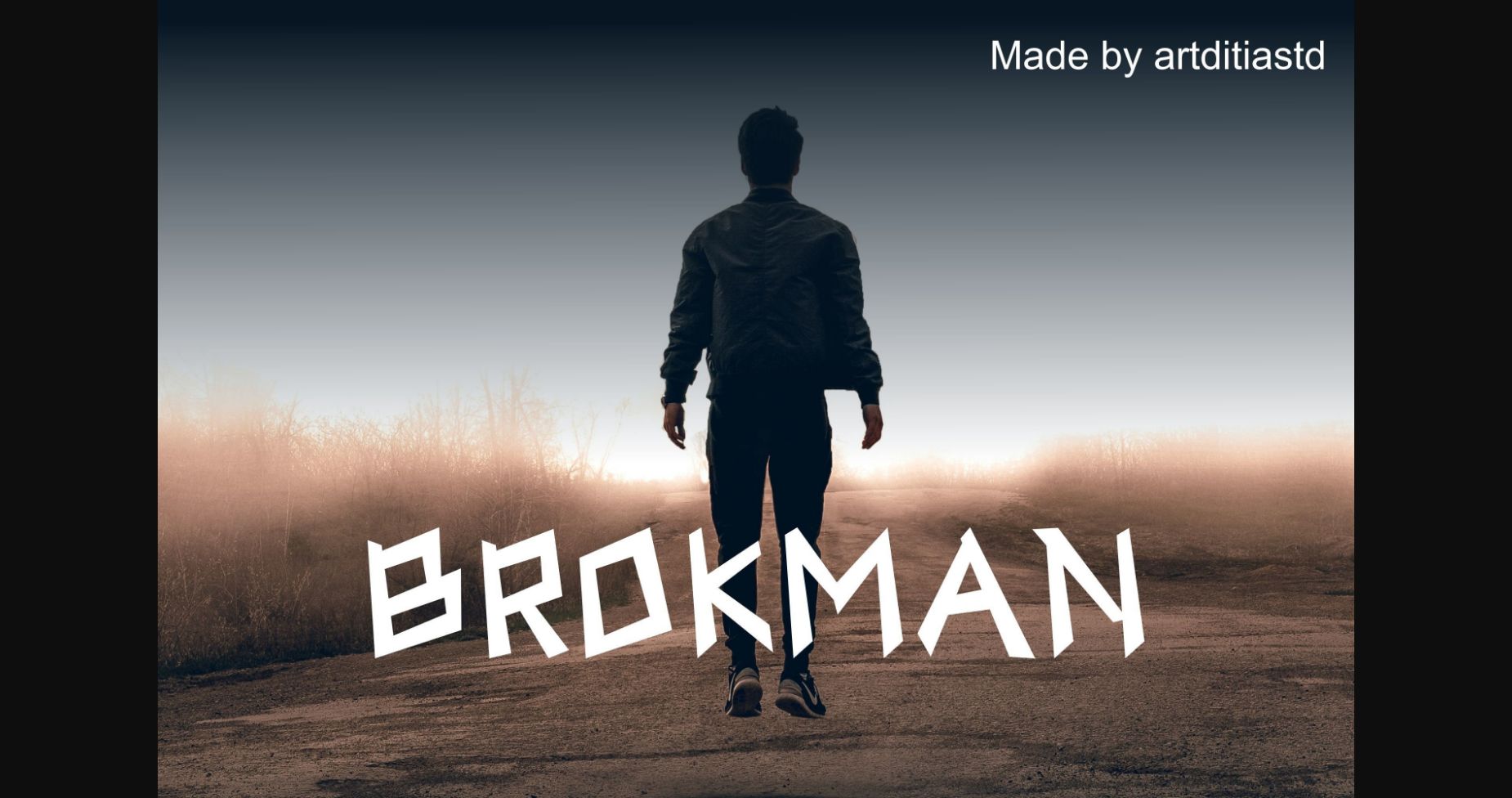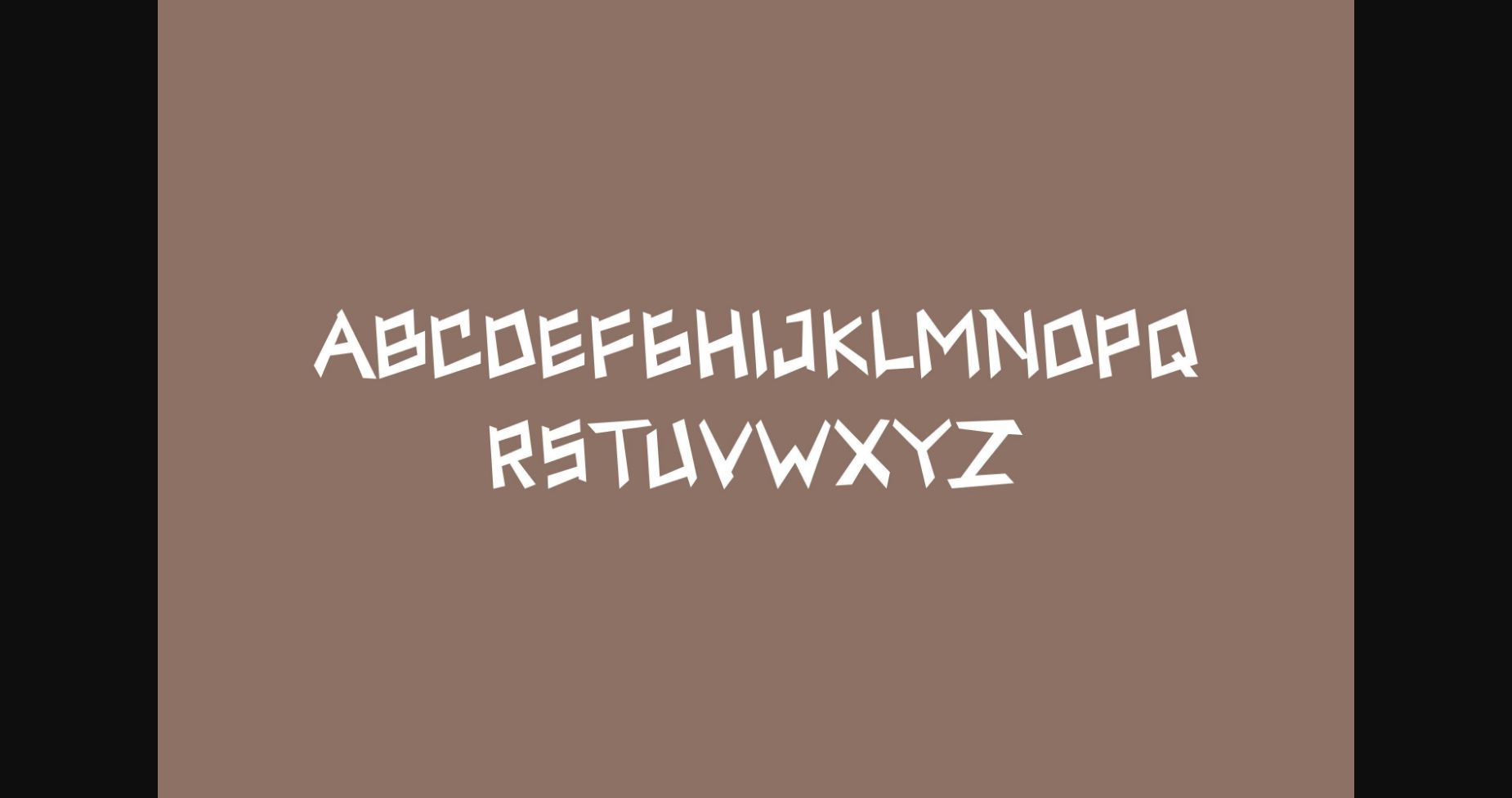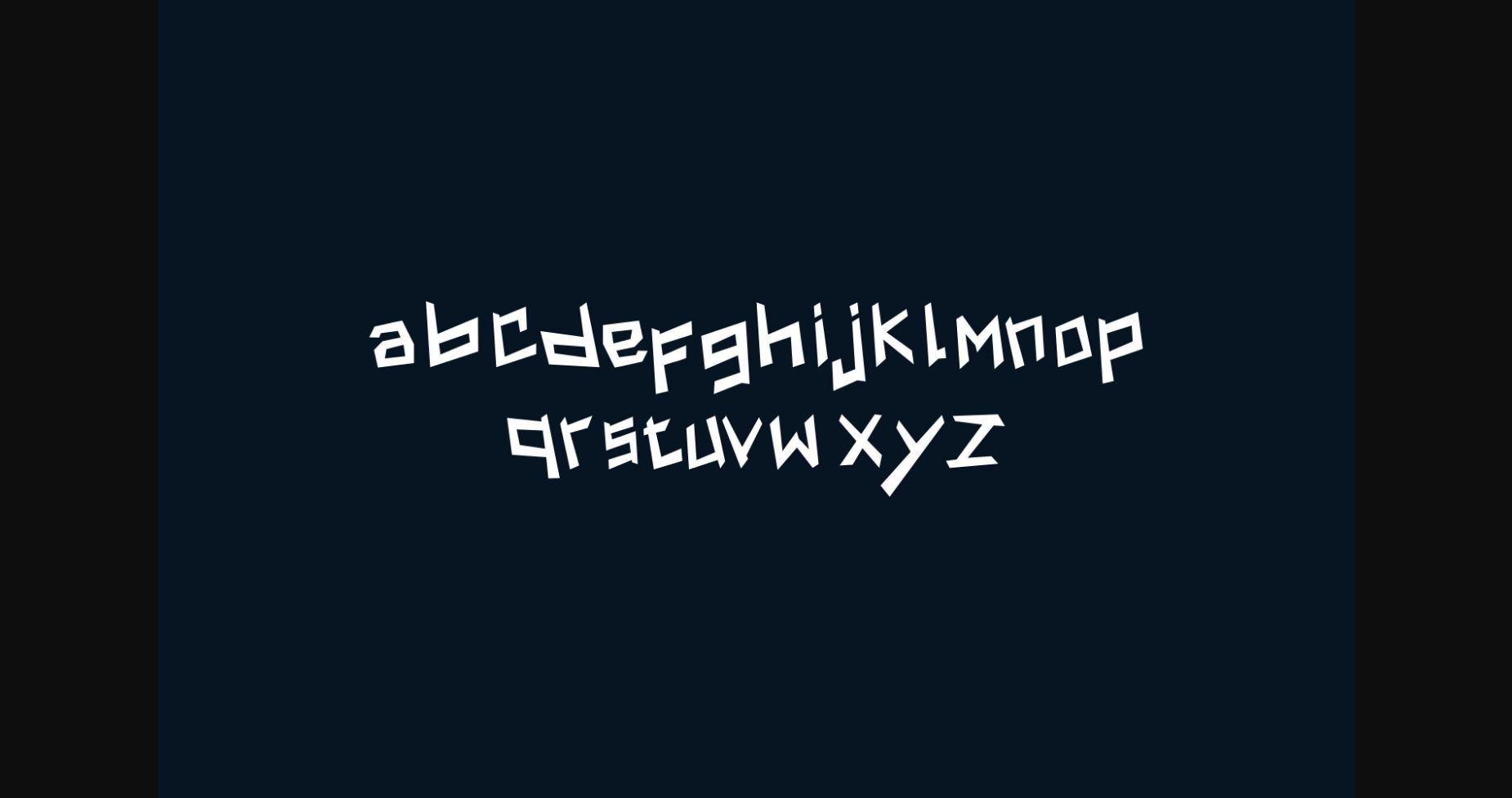
Brokman is a bold and authentic display font suitable for any branding project like logo, t-shirt printing, export, and many more. It looks modern and outstanding in a wide range of contexts.